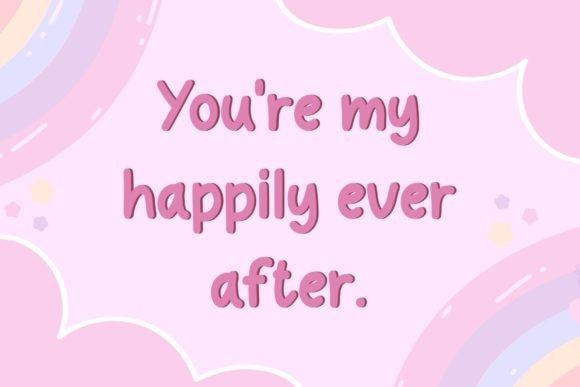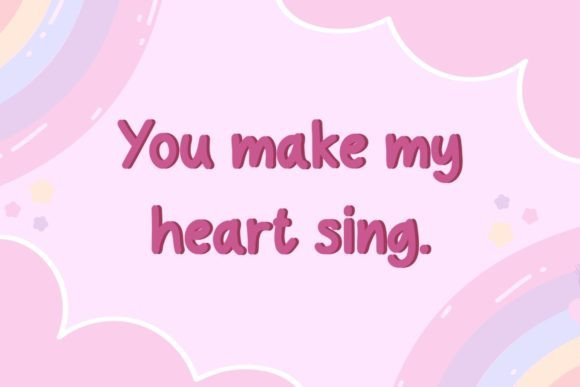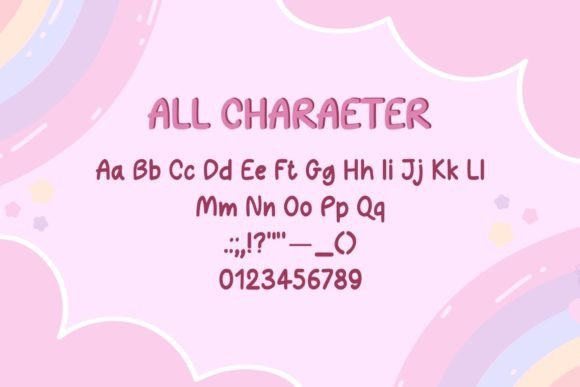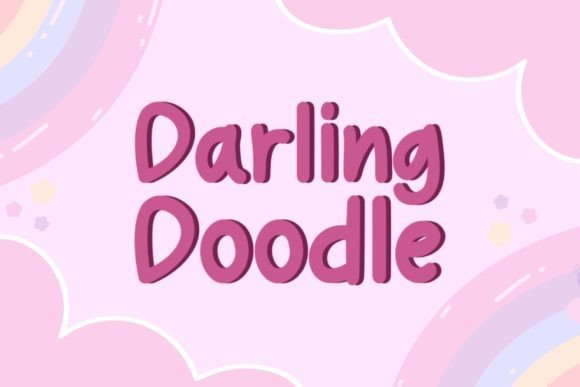
Introducing the DarlingDoodle Font: Adding Whimsy and Charm to Your Designs
Are you tired of using the same old fonts in your designs? Look no further than the DarlingDoodle font, a whimsical and delightful typeface that will add a touch of charm to your creations. With its playful and hand-drawn letterforms, this font brings a sense of joy and creativity to any project. Whether you’re designing greeting cards, invitations, or posters, the DarlingDoodle font will capture hearts and captivate minds.
A Unique and Playful Style
The DarlingDoodle font boasts a unique style that is perfect for adding a personal and unique touch to your designs. Its hand-drawn letterforms are full of character and personality, making it ideal for designers and crafters who want to add a touch of whimsy to their work. The font’s playful and carefree vibe is sure to bring a smile to anyone’s face, making it perfect for designs that require a lighthearted and fun approach.
The DarlingDoodle font is versatile and can be used in a variety of design projects. Here are just a few ideas to get you started:
- Greeting cards: Add a personal touch to your greeting cards with the DarlingDoodle font. Whether it’s a birthday, anniversary, or holiday card, this font is sure to make your card stand out.
- Invitations: Make your invitations truly special with the DarlingDoodle font. Perfect for weddings, baby showers, and other celebrations, this font will add a touch of elegance and whimsy to your designs.
- Posters: Create eye-catching posters with the DarlingDoodle font. Whether you’re advertising a sale, promoting an event, or simply creating a fun design, this font is sure to grab attention.
- Social media graphics: Add a touch of personality to your social media graphics with the DarlingDoodle font. Perfect for creating engaging and shareable content, this font is sure to help your designs stand out.
Why Choose the DarlingDoodle Font?
So why choose the DarlingDoodle font for your designs? Here are just a few reasons:
- Unique style: The DarlingDoodle font has a unique and playful style that will add a touch of charm to your designs.
- Hand-drawn letterforms: The font’s hand-drawn letterforms are full of character and personality, making it perfect for designers and crafters who want to add a personal touch to their work.
- Versatile: The DarlingDoodle font can be used in a variety of design projects, from greeting cards to posters and social media graphics.
Tips for Using the DarlingDoodle Font
Here are a few tips for using the DarlingDoodle font in your designs:
- Experiment with different colors: The DarlingDoodle font looks great in a variety of colors, so don’t be afraid to experiment and find the perfect hue for your design.
- Pair with other fonts: The DarlingDoodle font pairs well with other fonts, so try combining it with a bold or serif font to add contrast and interest to your design.
- Use it sparingly: While the DarlingDoodle font is perfect for adding a touch of whimsy to your designs, it can be overwhelming if used too much. Use it sparingly to add emphasis and create visual interest.
Get Ready to Spread Smiles with the DarlingDoodle Font
The DarlingDoodle font is sure to bring a smile to anyone’s face, making it perfect for designers and crafters who want to create designs that are truly unforgettable. With its playful and hand-drawn letterforms, this font is sure to capture hearts and captivate minds. So why wait? Get ready to spread smiles and make your designs truly unforgettable with the enchanting DarlingDoodle font.
| Author | MyFontsShop |
In conclusion, the DarlingDoodle font is a whimsical and delightful typeface that will add a touch of charm to your designs. With its playful and hand-drawn letterforms, this font brings a sense of joy and creativity to any project. Whether you’re designing greeting cards, invitations, or posters, the DarlingDoodle font will capture hearts and captivate minds. So why wait? Download the DarlingDoodle font today and start creating designs that are truly unforgettable.